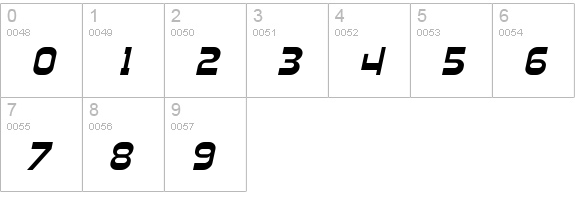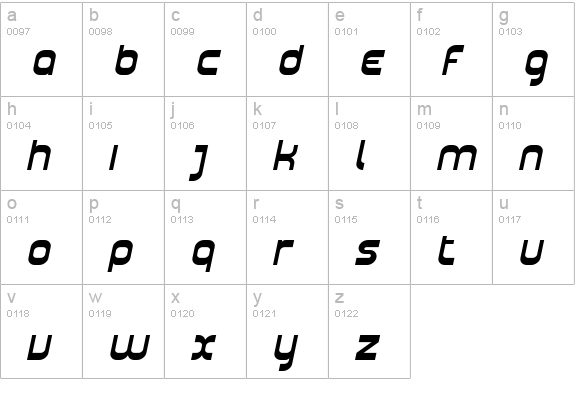
Plasmatica Ext Italic is a distinctive, italic variant in the Plasmatica typeface family \xE2\x80\x94 well suited to design and typography projects.
Plasmatica Ext Italic font is a stunning and stylish typeface that will bring a touch of elegance and sophistication to any design project. Its unique and modern design features sleek and curvaceous letterforms with a distinctive italic slant, adding a dynamic and energetic feel to your text. This font is perfect for adding a touch of flair to headlines, titles, logos, and other creative projects. Its versatility allows it to be used in a variety of contexts, from modern and edgy designs to more traditional and classic layouts. Plasmatica Ext Italic font is sure to make a bold statement and capture attention. What sets this font apart is not only its stunning design, but also the fact that it is available for free. That's right, you can freely download Plasmatica Ext Italic font at FontsMarket.com. This means that you can add this beautiful typeface to your collection without any cost, making it an excellent choice for both personal and commercial projects. With Plasmatica Ext Italic font, you have the freedom to unleash your creativity and experiment with different styles and layouts. Its clean and legible letterforms ensure that your text will always be easy to read, while its unique design adds a touch of personality and character. Whether you're designing a website, creating a poster, or working on a branding project, Plasmatica Ext Italic font is the perfect choice to make your text stand out. So why wait? Download this amazing font for free at FontsMarket.com and elevate your designs to a whole new level.